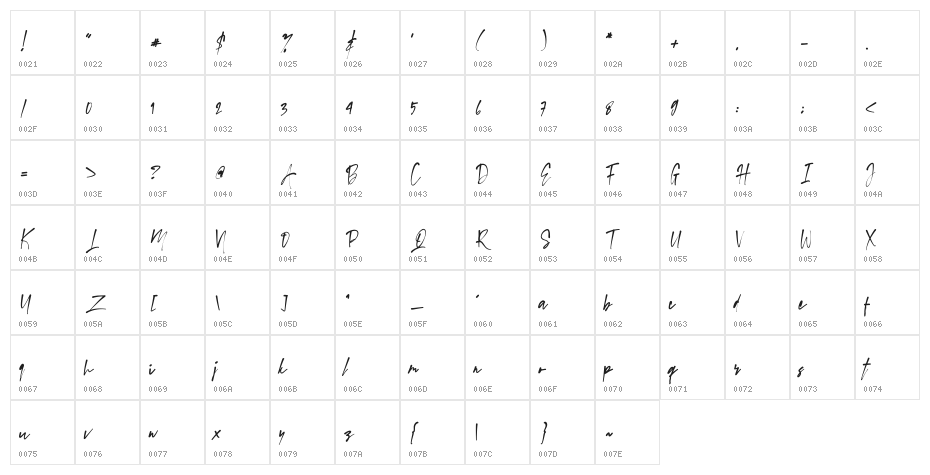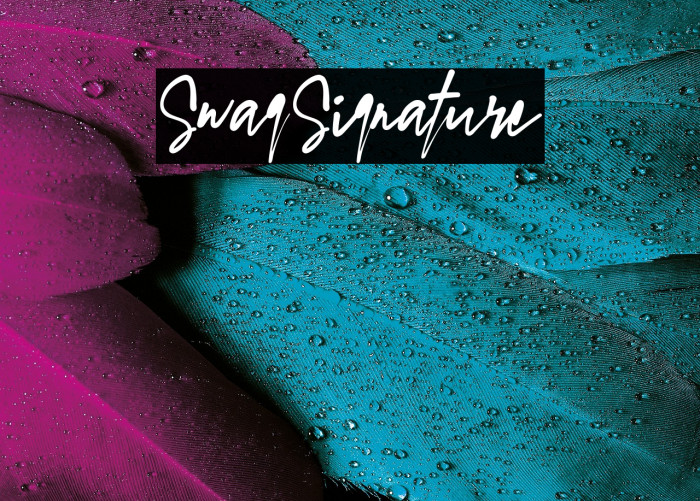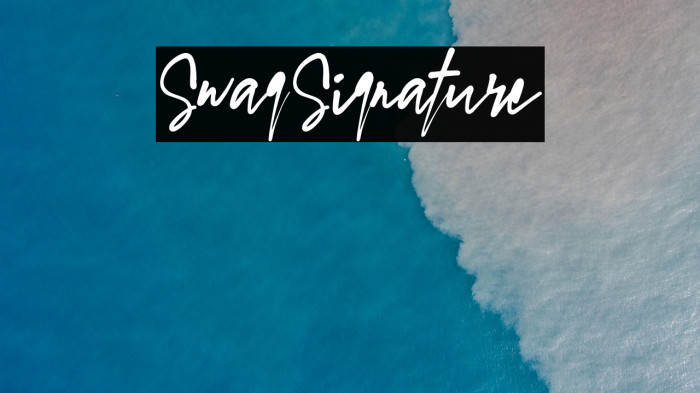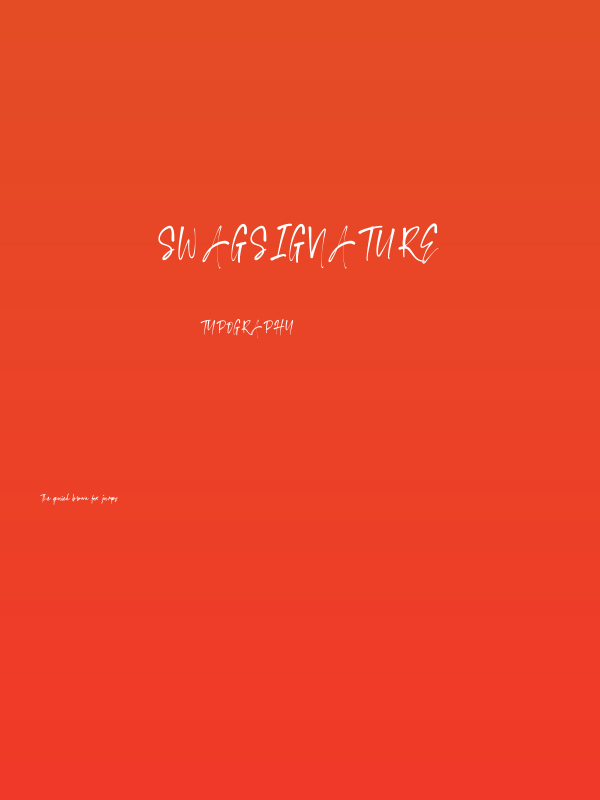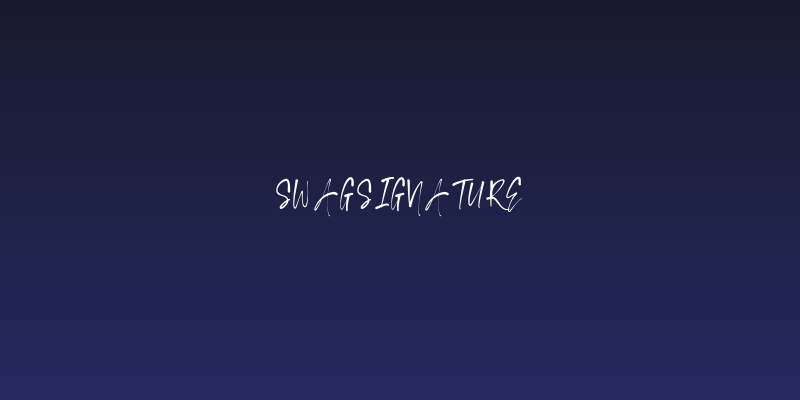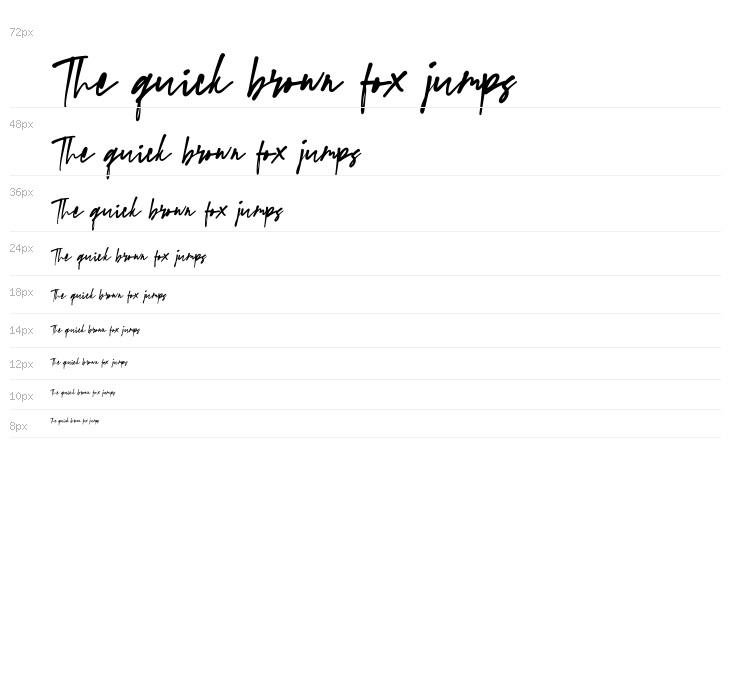
SwagSignature Font
SwagSignature Description
A dynamic, handwritten script font with expressive, flowing strokes and varying line thickness, giving a casual yet stylish appearance. The characters are slightly slanted and feature irregular baselines, enhancing the organic, signature-like feel.
| Overall Style | Decorative, Modern, Artistic |
| Use Case | Logos, Signatures, Headlines, Invitations |
| Proposed Projects | Personal branding, signatures, invitations, fashion branding, social media graphics. |